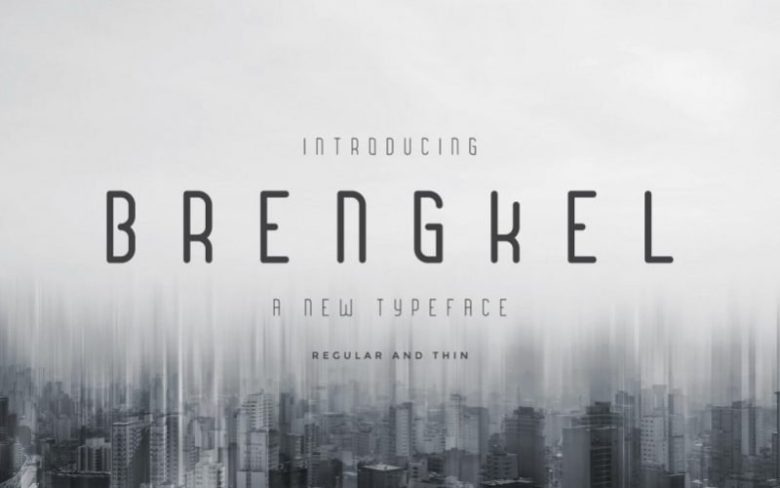
Brengkel Condensed Font
Hi! introduce Brengkel Font. It’s allowing you to create Logo, greeting cards, quotes, posters, branding, stationary, design title, blog header, art quote, typography art, modern envelope lettering or any purpose to make our art/design project look pretty and trendy.
Brengkel Font is suitable to use for any kind of design such as branding projects, logo, wedding designs, social media posts, advertisements, product packaging, product designs, label, photography, watermark, invitation, poster, t-shirt design, stationery and any projects that need handwriting taste.